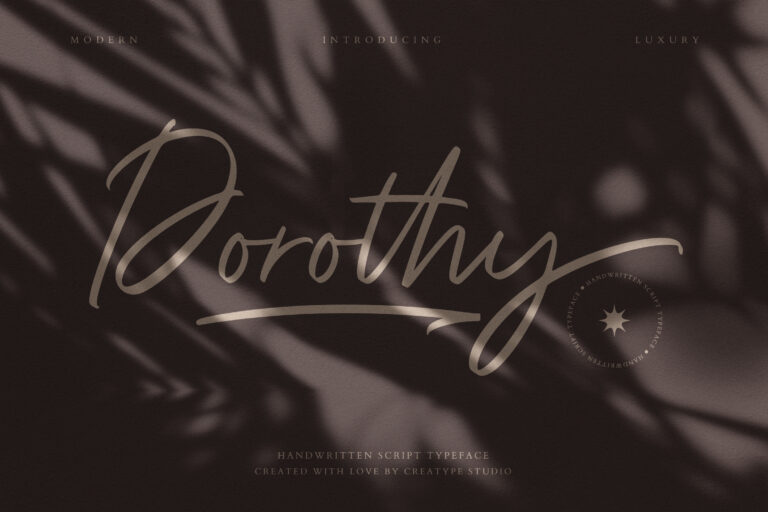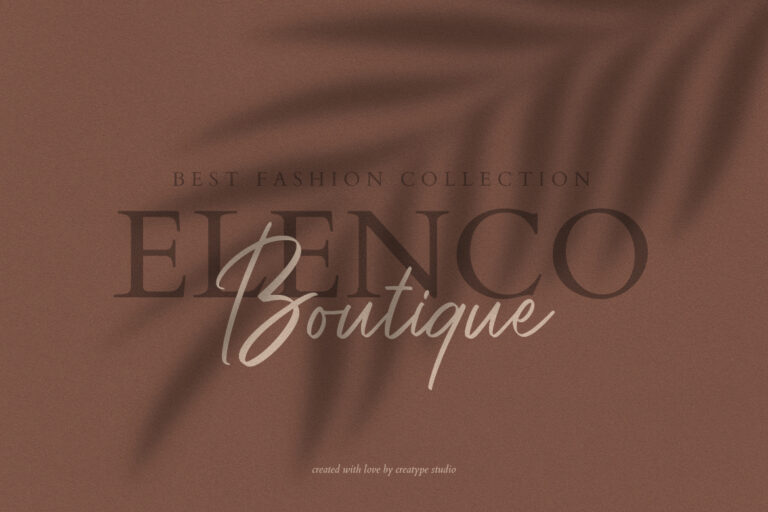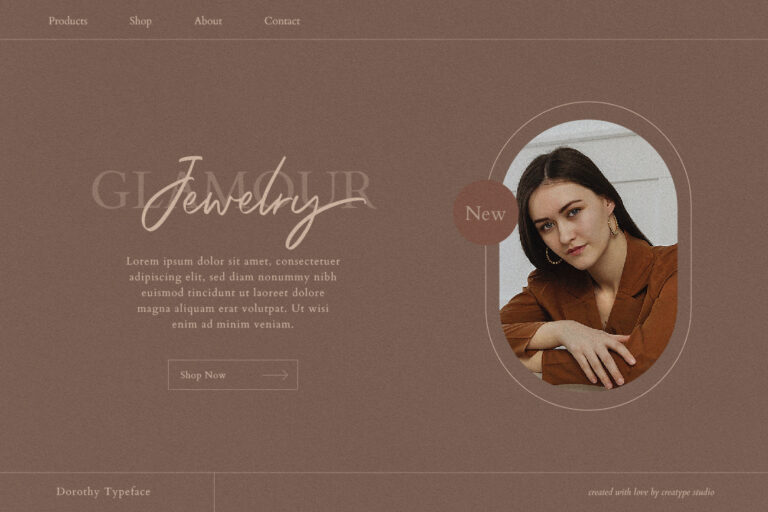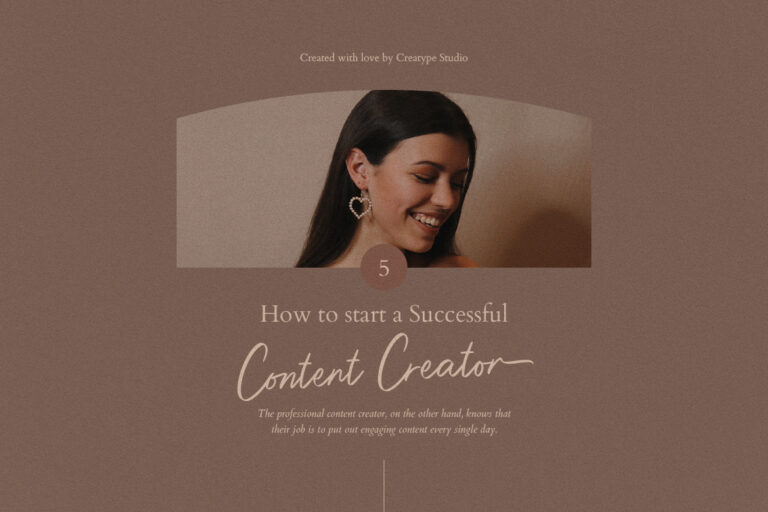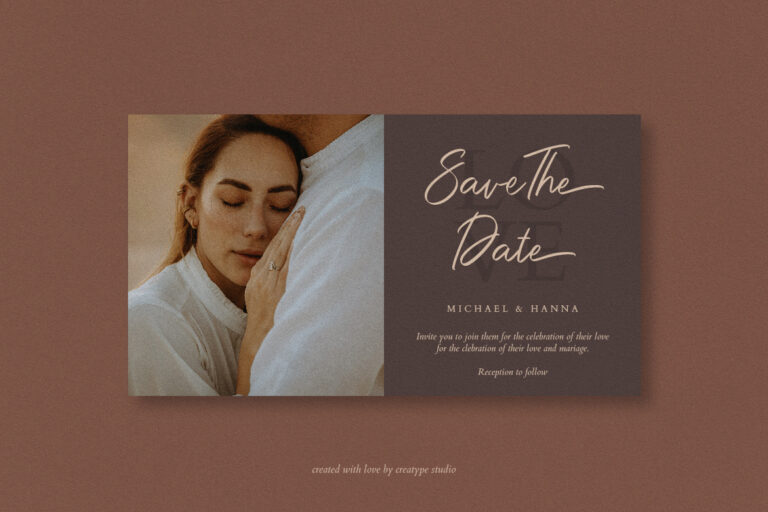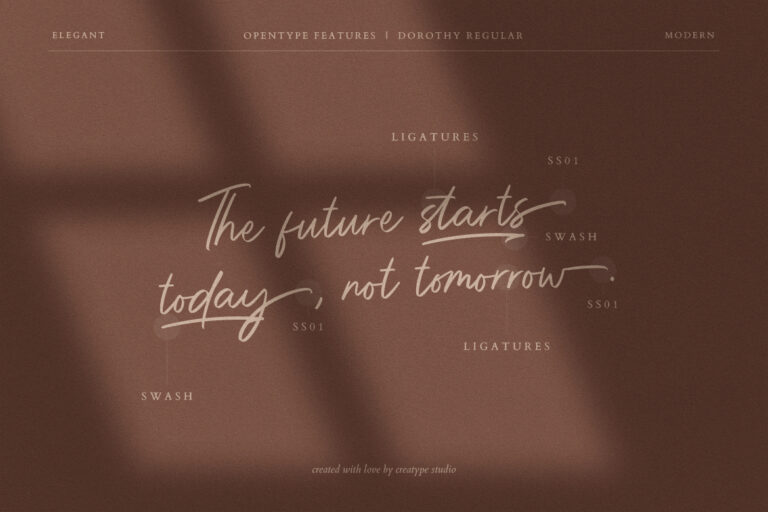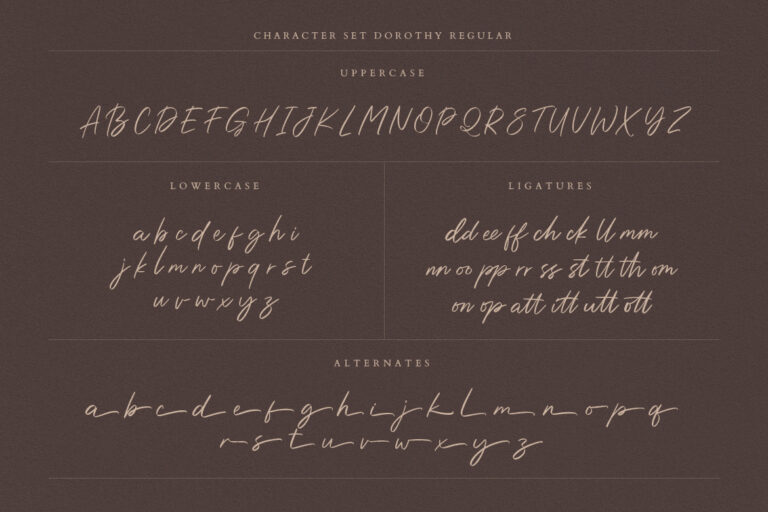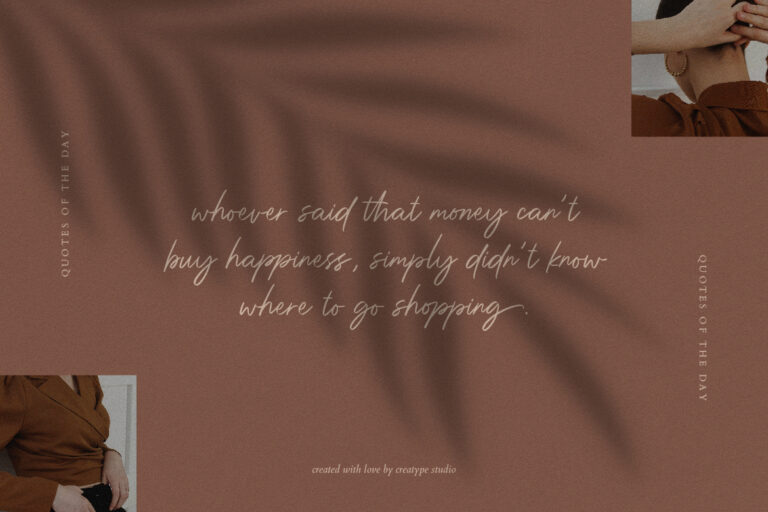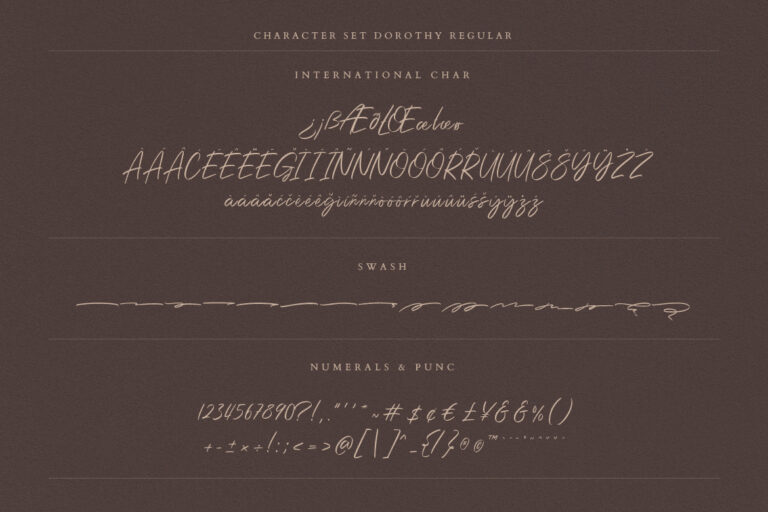
Dorothy is a Handwritten Script typeface, with its fine strokes making this font look very modern, stylish and luxurious. There is a swash effect on this font that makes this font look even bolder, more modern, stylish and of course luxurious.
Dorothy Handwritten Script is perfect for branding projects, logo, wedding designs, social media posts, advertisements, product packaging, product designs, label, photography, watermark, invitation, stationery and any projects that need handwriting taste.
Dorothy Handwritten Script